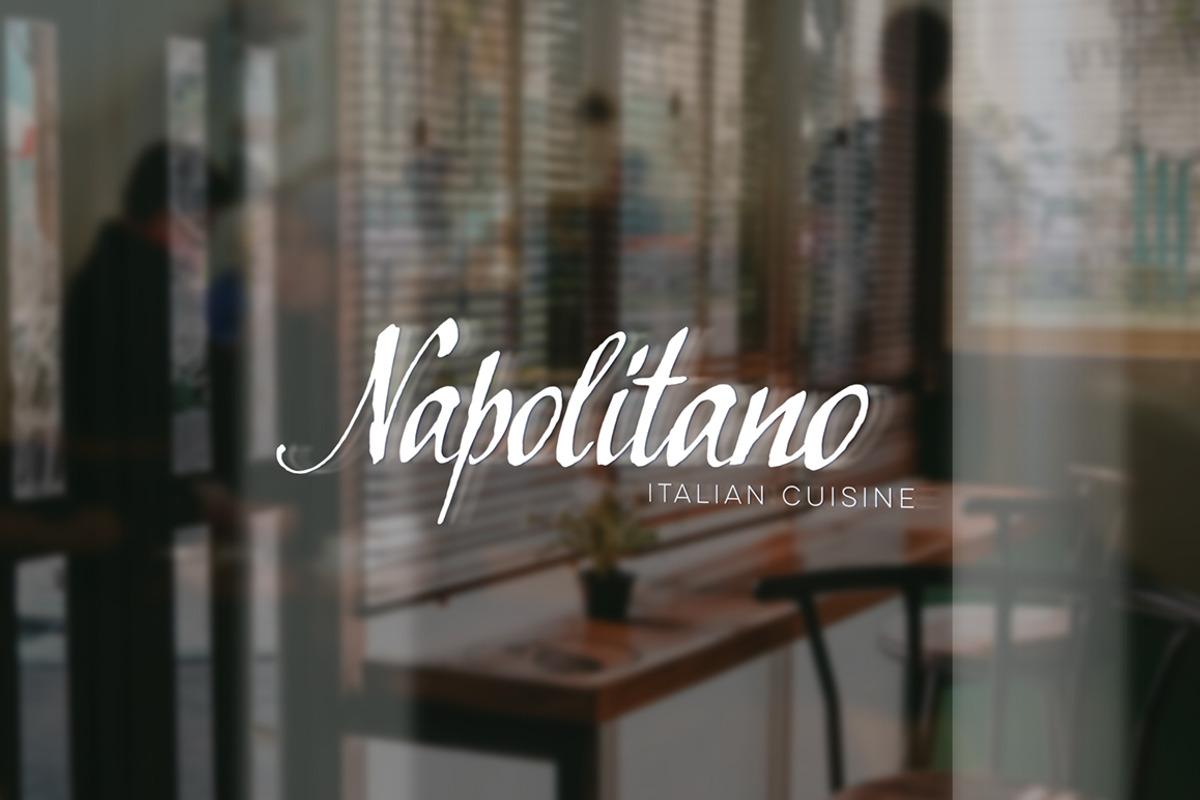
ArfaQuill Calligraphic Script
Hello ladies and gentlemen, my name is ArfaQuill and I am a classic and elegant calligraphic script. I'm not perfect and somewhat rough, but this is part of my personality - I have this touch of human warmth. I was created entirely on paper by hand with a flat nib pen. You can use me to create whatever you want but I look especially good in logos, signs, titles and typographic compositions.
Sincerely, ArfaQuill